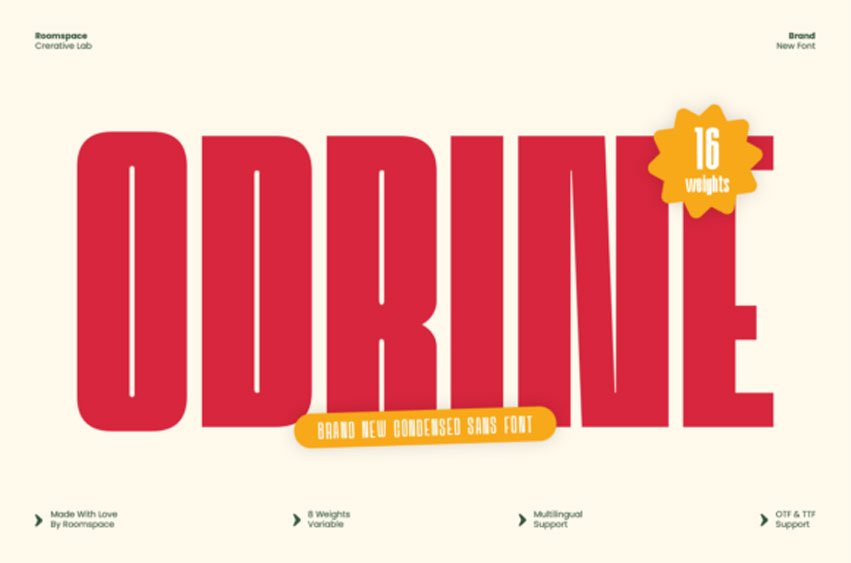
Odrine Font
Odrine Font is a retro modern condensed sans typeface with strong lines and timeless geometry. It’s perfect for branding, logos, magazines, headlines, and creative posters.
Featuring 16 weights and variable support, Odrine offers flexibility for digital and print projects with a bold, modern look.
– 16 weights + Variable font